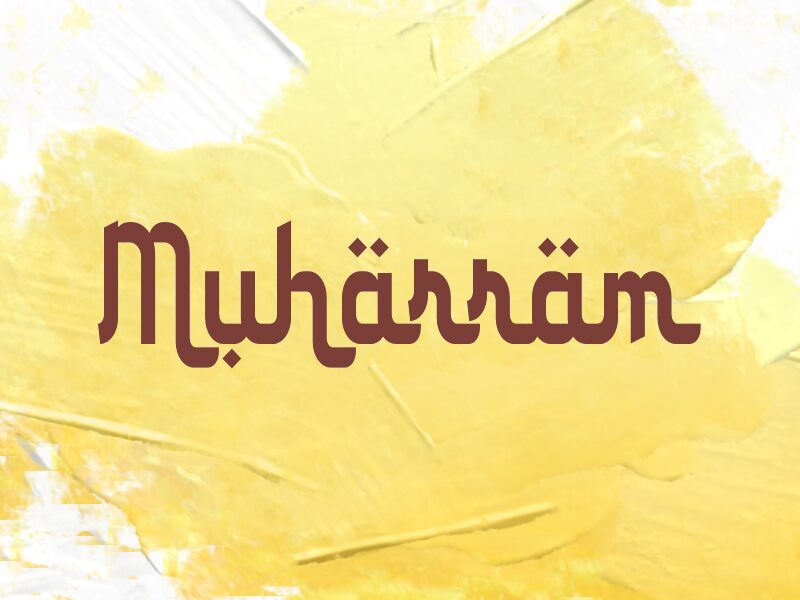
Muharram
Muharram font by wep is a free faux Arabic foreign typeface that turns Latin text into bold, ribbon-like script with a Middle Eastern flavor. Its chunky strokes, tight curves, and stacked diamond dots create a woven, geometric rhythm that feels both ornamental and readable. The letters lock together like tiles, giving headlines a strong, continuous band of ink that instantly sets a mood.
Using Muharram, short phrases and titles gain a theatrical, cultural accent that stands out on restaurant branding, event posters, packaging, book covers, menus, and social graphics. This free font works best at larger sizes, where its blocky curves and decorative details can breathe. For longer supporting text, pair Muharram with a clean sans serif to keep layouts clear while letting the faux Arabic styling carry the theme.